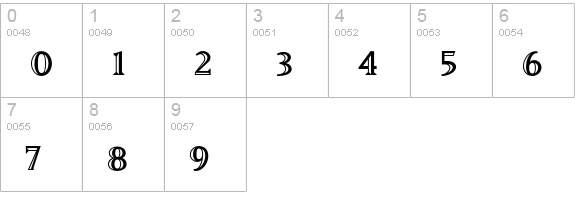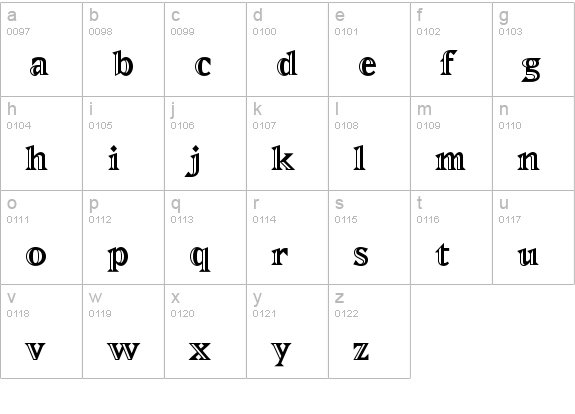
MatrixInlineExtraBoldLining Font Details
MatrixInlineExtraBoldLining font is a striking and bold typeface that demands attention. With its sleek and modern design, this font exudes confidence and sophistication. The sharp, inline detailing adds a unique edge to any project, making it ideal for posters, headlines, and branding materials. What sets MatrixInlineExtraBoldLining font apart is not only its powerful presence but also the fact that it is available for free download at FontsMarket.com. This means you can easily access and use this impressive font for your personal or commercial projects without any cost. Don't miss out on adding MatrixInlineExtraBoldLining font to your font collection today!